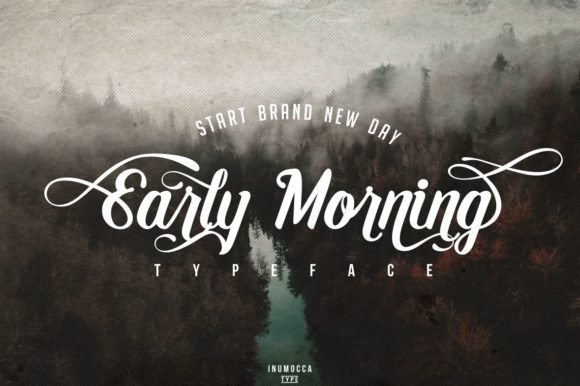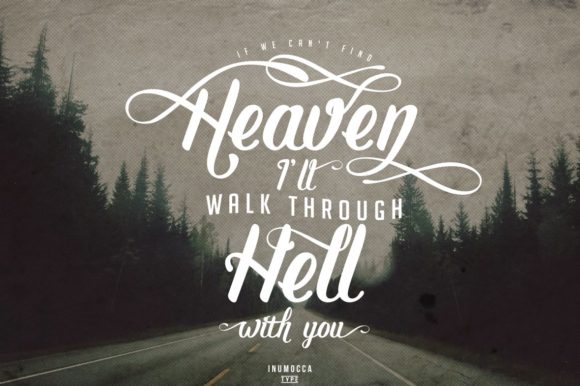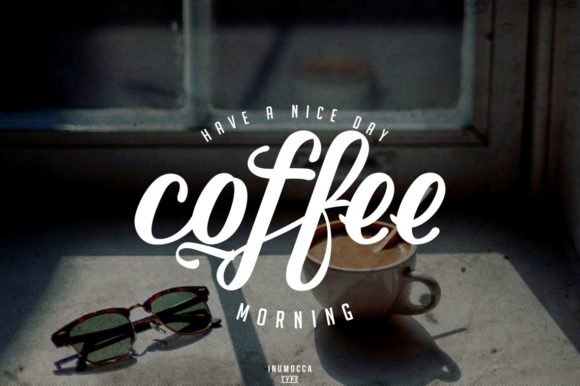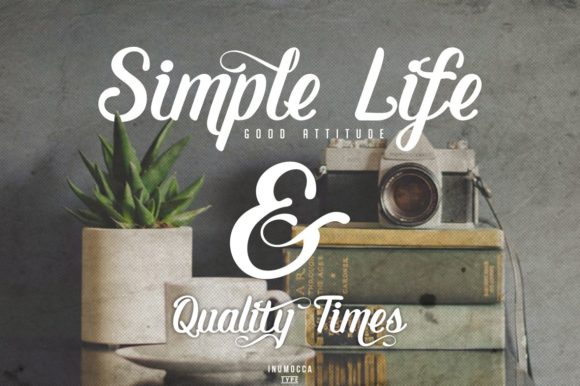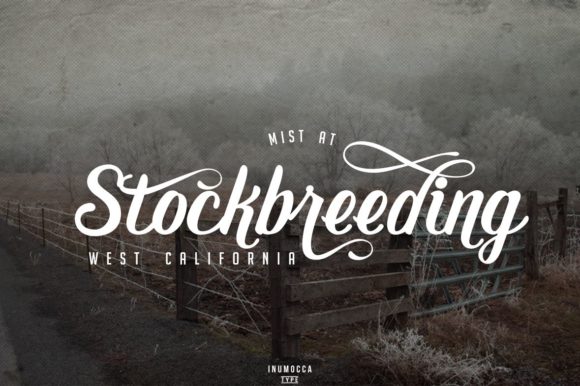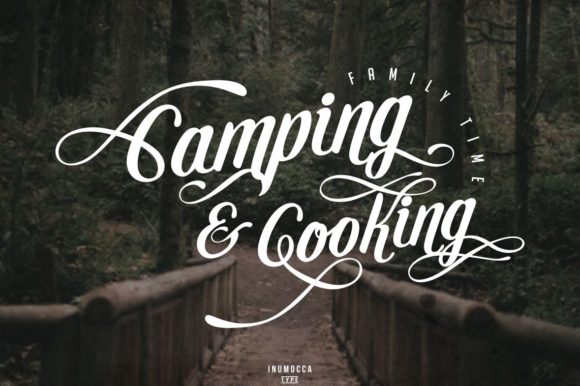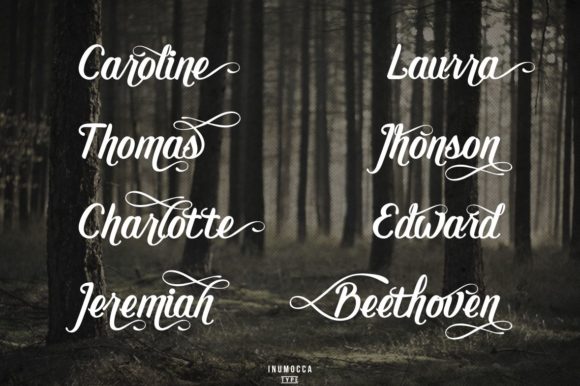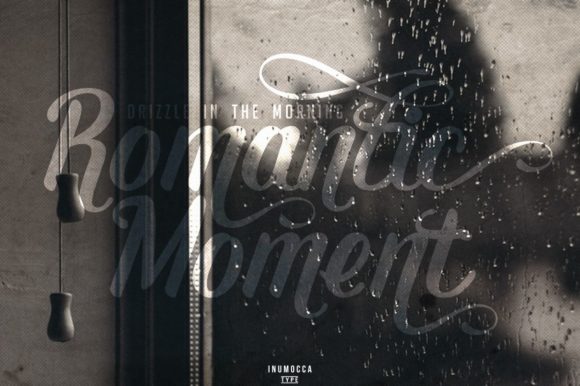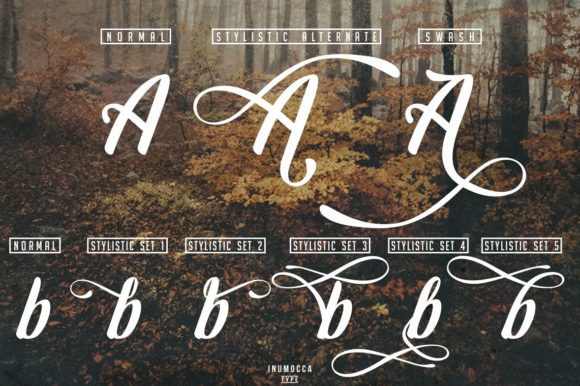
HomeScript FontsEarly Morning Font Script Fonts Early Morning Font FacebookXPinterestWhatsApp Early Morning Font Poster 2 Early Morning Font Poster 3 Early Morning Font Poster 4 Early Morning Font Poster 5 Early Morning Font Poster 6 Early Morning Font Poster 7 Early Morning Font Poster 8 Early Morning Font Poster 9 About Early Morning Font Rise and Shine! Early Morning is a sweet and breathtaking script with amazing swashes. DOWNLOAD NOW People also explored Montana Font Reonica Font Baynaa Font Rutfle June Extra Bold Font Flowers Monogram Font Walking Sakura in Kyoto Font Halloween Ghost Font Givonic Font 272 0 TagsEarly Morning Font Previous articleDreamland FontNext articleBouquet Font LEAVE A REPLY Cancel reply Comment: Please enter your comment! Name:* Please enter your name here Email:* You have entered an incorrect email address! Please enter your email address here Website: Save my name, email, and website in this browser for the next time I comment. Personal Use Free Machine House Personal Use Free Read more about this font Made of Concrete Personal Use Free Read more about this font Fake Receipt Personal Use Free Read more about this font Aseline Personal Use Free Read more about this font BLOG Free vs Paid Fonts: Why Investing in Premium Fonts Is Worth It Free vs Paid Fonts: Why Premium Fonts Are Worth It in 2025 The debate of free vs paid fonts continues in the design world. While... To increase your work productivity, choose the most readable fonts. Where to Buy American Fonts Online in 2024 Top 10 Handwritten Fonts That Elevate Your Designs